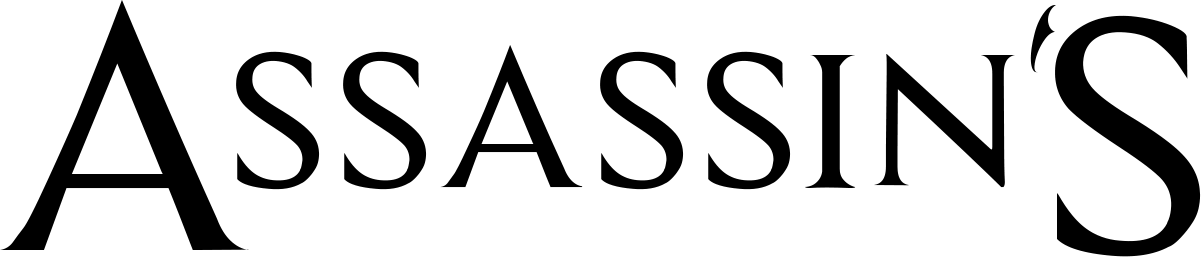
Assassin Font
We hope Assassin font is the right font you are looking for. This strong font can help you write critique combat movies on your website and create powerful military magazine covers.
This font does not support numbers, but with many creative elements that you can even search in the title of Assassin’s Creed movie, it will significantly affect the sales of your film. Also, you can use it to design many movie podcasts.
ASSASSIN’S CREED font: directly from the Best videogame by UBISOFT,the original font for all lovers.